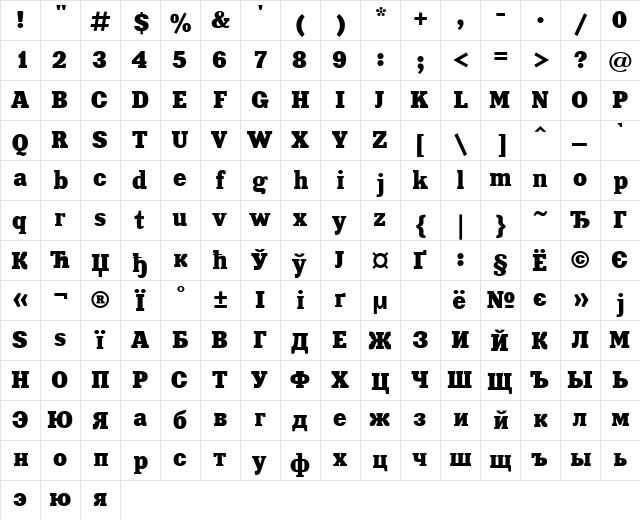
Xenia Bold Cyrillic Font Preview
Xenia Bold Cyrillic
Design Context for Xenia Typeface
Xenia takes a measured approach to typography — its balanced proportions and neutral character make it a reliable workhorse for both digital and print work. The heavy weight commands attention and anchors typographic hierarchies.